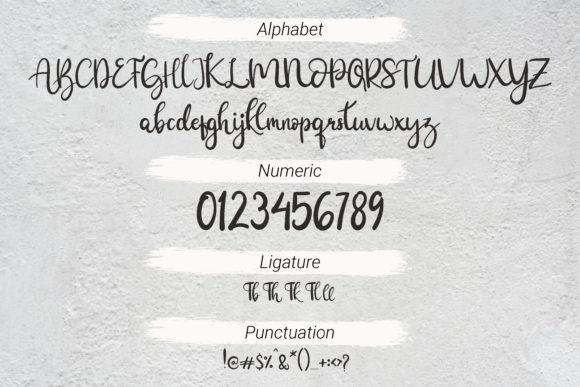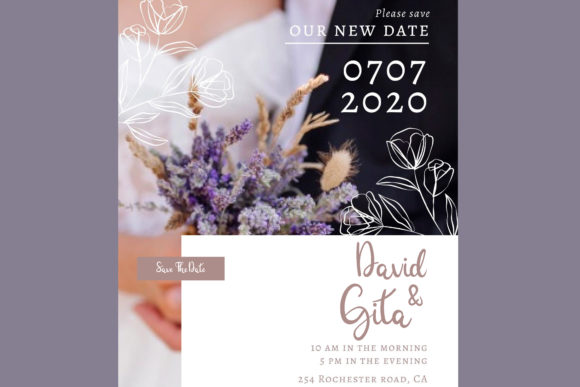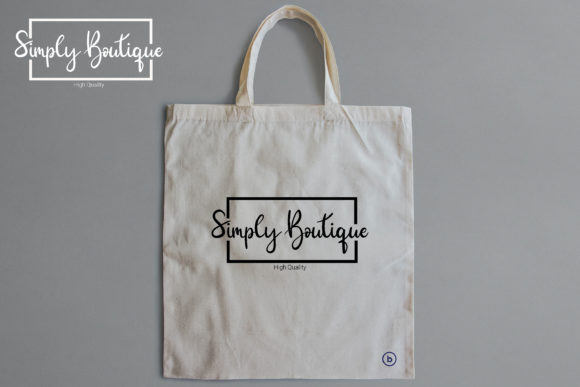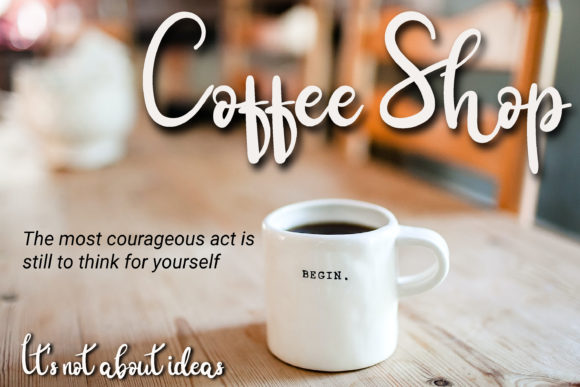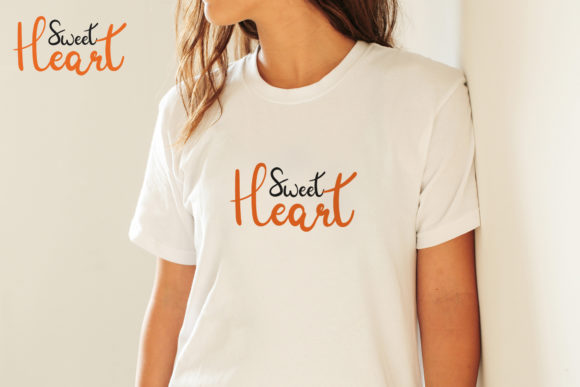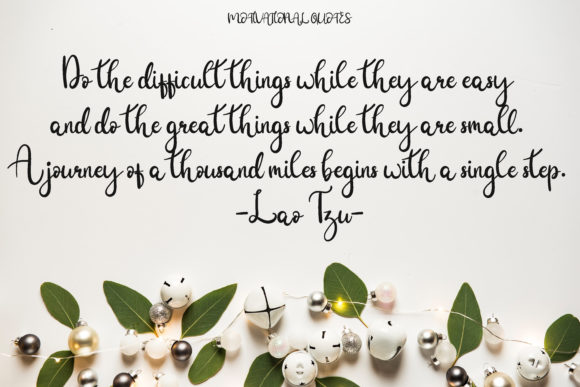
Balleroga Font: The Whimsical Touch You’ve Been Searching For
As a creative, there’s nothing quite like the rush of inspiration that hits when you’re brainstorming a new project. The ideas start flowing, and before you know it, you’re scribbling down notes and sketching out concepts. For many designers, that spark of creativity often leads to the hunt for the perfect font to bring their vision to life. And that’s where the Balleroga Font comes in – a beautiful, handwritten font that’s sure to add a touch of whimsy to any design.
The Balleroga Font is more than just a pretty face; it’s a versatile tool that can be used for branding, logos, t-shirt design, crafts, quotes, social media, and so much more. Its playful, handwritten style makes it the perfect addition to any project that needs a little extra personality.
Balleroga Font Key Features
- Font Family: Balleroga Font offers a unique, hand-drawn design with a mix of elegant and playful elements.
- Unique Characteristics: Features a distinctive, hand-drawn style with subtle imperfections, giving it a unique and personal touch.
Balleroga Font Review
Balleroga Font, designed by Christian Robertson, is a unique blend of sans-serif and handwritten elements. Upon initial inspection, it stands out with its ✨ fluid connections between characters, making it perfect for projects that require a touch of elegance and sophistication.
- ✨ Unique blend of sans-serif and handwritten elements, adding a touch of personality to any project.
- ✨ Highly legible, even at smaller font sizes.
- ✨ Supports a wide range of languages, making it a versatile option for global projects.
- ⚠️ Limited availability of font weights and styles, which may limit its application in certain contexts.
- ⚠️ Some characters may appear a bit irregular or inconsistent, which may affect the overall aesthetic.
Overall, Balleroga Font is a solid choice for projects that require a touch of sophistication and elegance. While it may have some limitations, its unique blend of sans-serif and handwritten elements make it a standout option for designers looking to add some personality to their work.